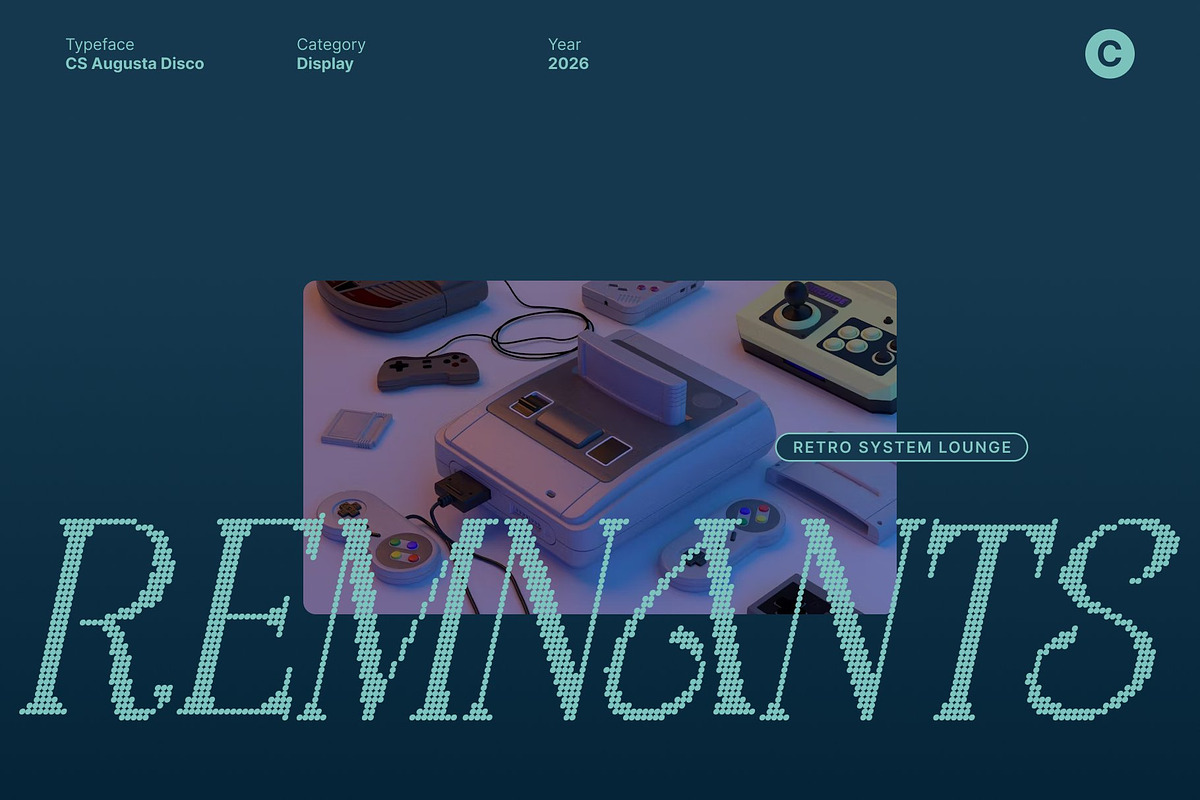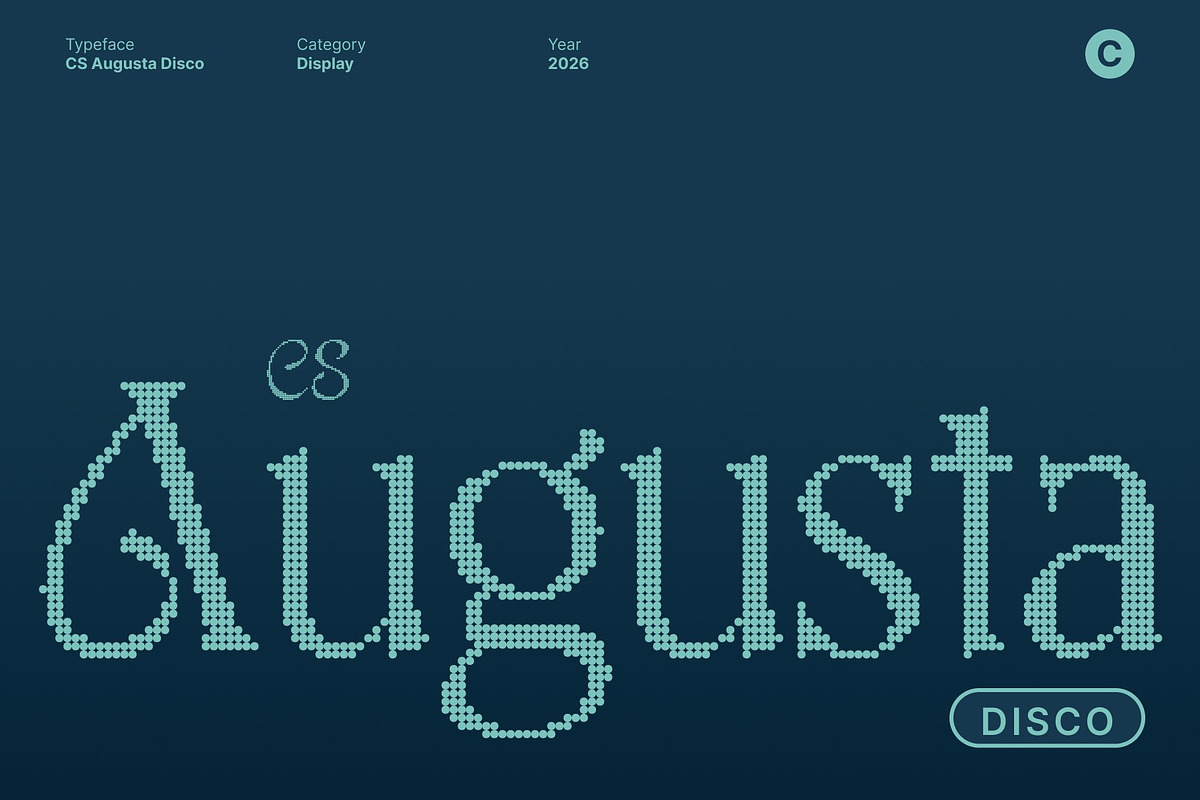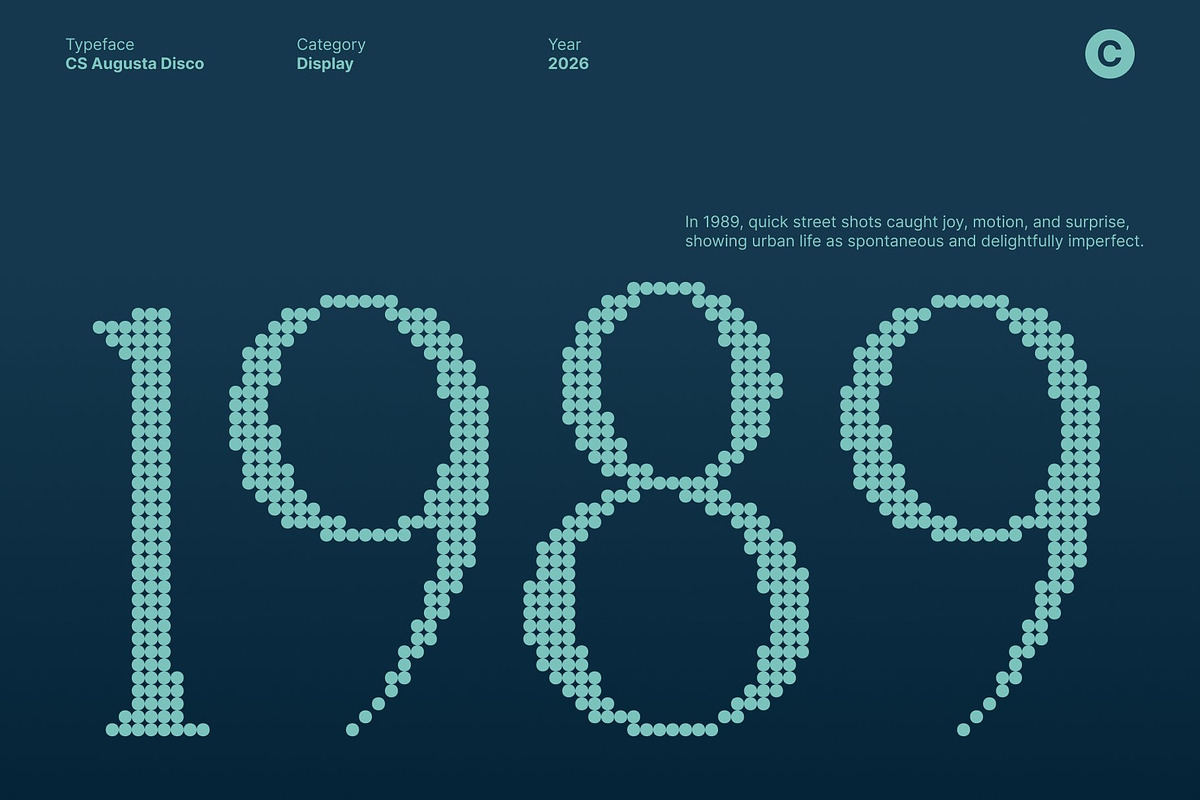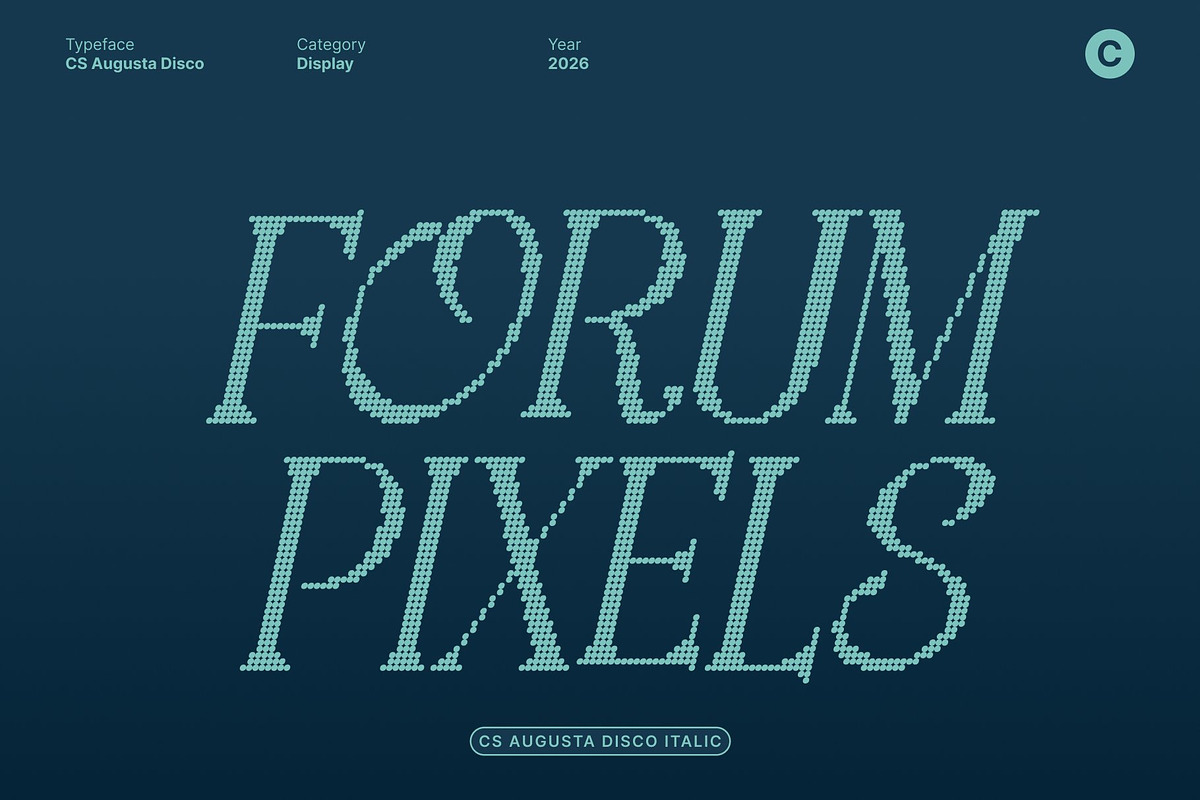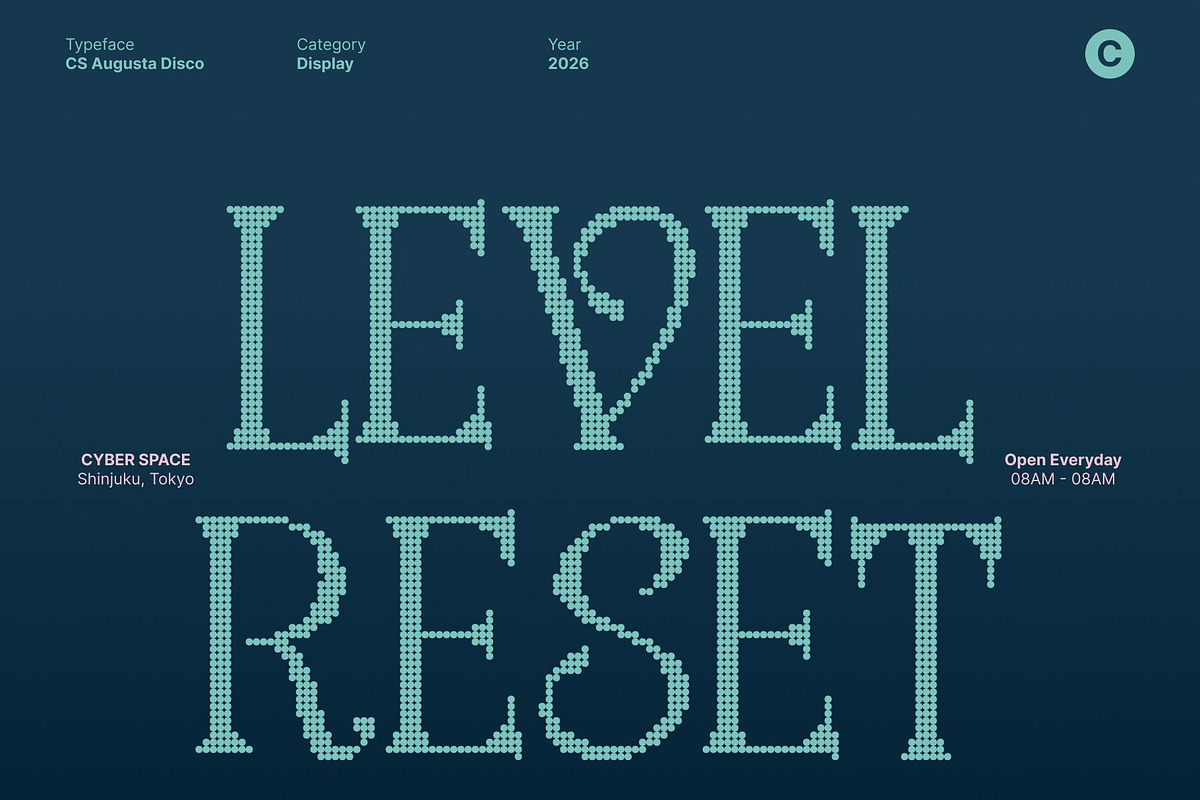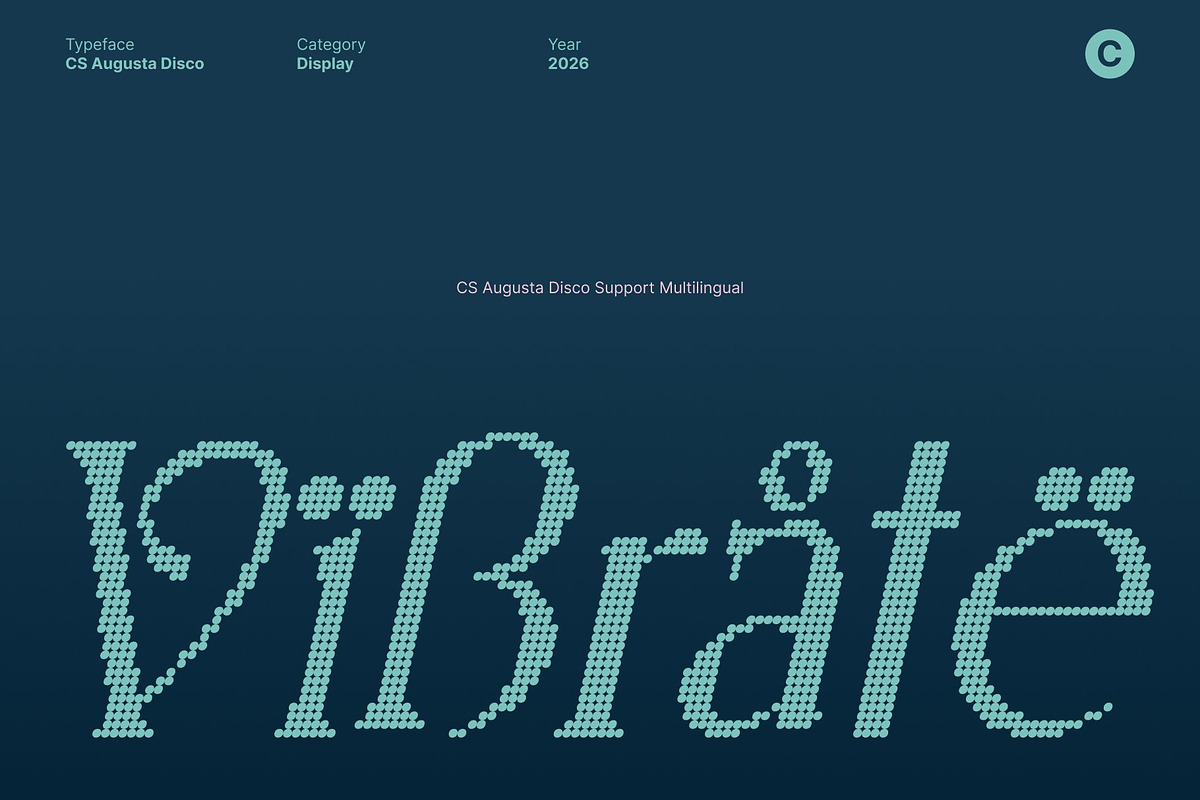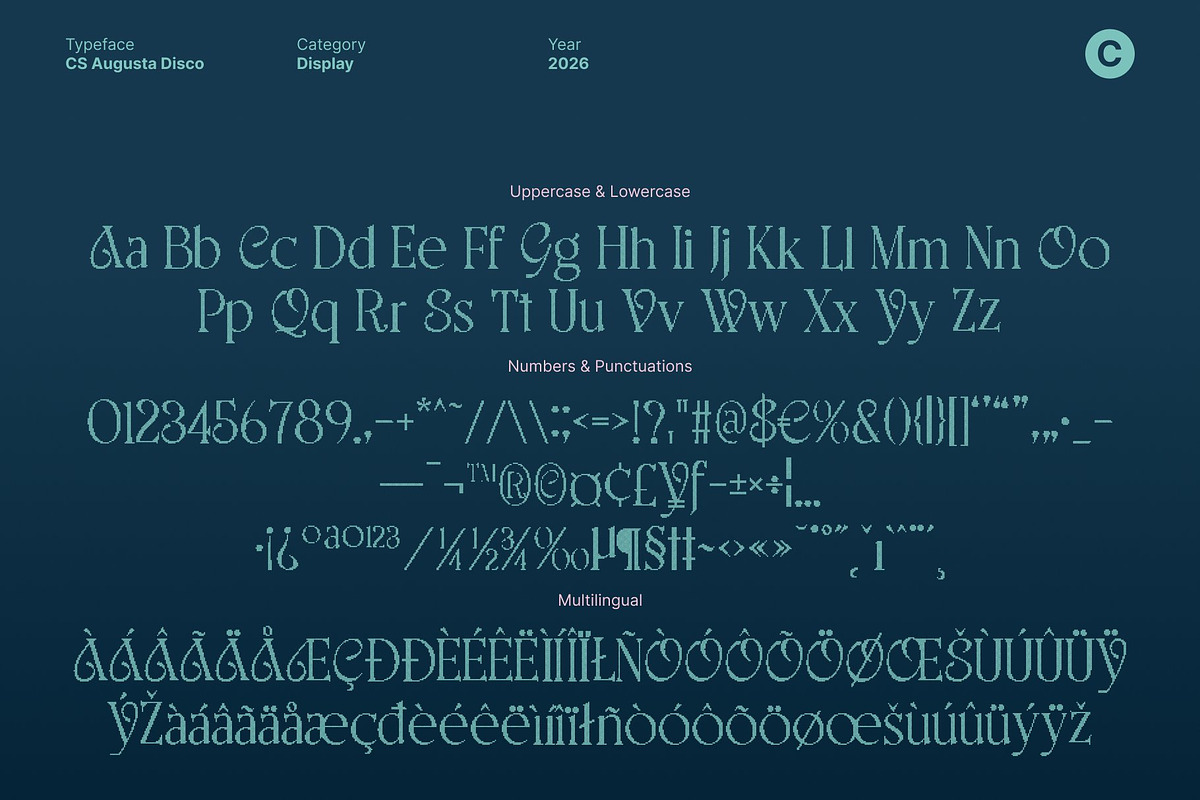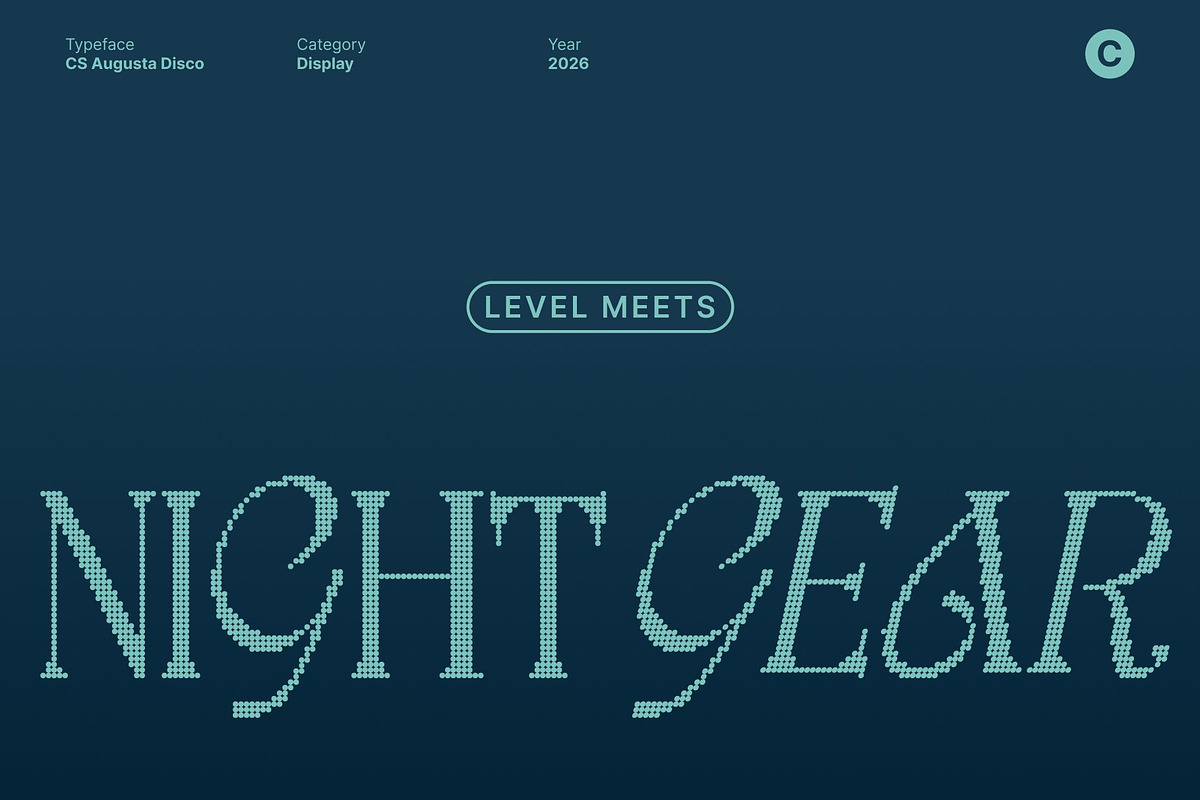
CS Augusta Disco
CS Augusta Disco – Elegant Serif with Luxurious Feminine Grace and Disco Glamour
Luxurious Serif with Graceful, Refined Presence This is an elegant serif font defined by smooth, flowing curves and beautifully refined details. Each letter is carefully crafted to create a polished, luxurious impression that feels confident, graceful, and timeless. Its sophisticated structure instantly elevates designs with a sense of beauty and feminine charm.
Timeless Elegance with Disco-Inspired Radiance While rooted in classic serif craftsmanship, this font introduces a subtle disco-inspired glow that adds celebration and visual allure. The soft rhythm of its curves combined with a glamorous party-inspired energy evokes evening elegance, shimmering lights, and refined nightlife bringing warmth and vitality to its luxurious form.
Perfect for Editorial, Books, and Premium Design This font excels in book layouts, editorials, magazine titles, and long-form reading applications. Its balanced proportions and smooth serifs ensure excellent readability, while the added disco energy enhances headlines and feature text with expressive sophistication.
Ideal for Feminine Branding and Luxury Packaging Beyond editorial use, this font shines in packaging, logos, and refined branding. Its feminine elegance and radiant character make it ideal for beauty products, fashion labels, lifestyle brands, and upscale visual identities. Beautifully crafted and visually captivating, this font blends timeless sophistication with modern glamour perfect for designs that deserve to shine.